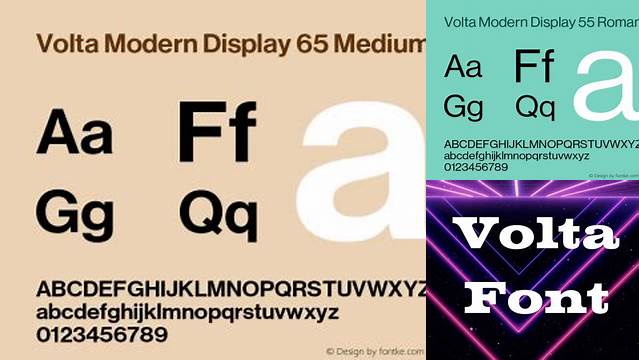
Volta Font: Free Download For Modern Display
Hey guys! Ever stumbled upon a font that just screams modern and chic? Well, let me introduce you to Volta, a display font that’s been making waves in the design world. And guess what? You can snag it for free! Let’s dive into why Volta is so awesome and how you can get your hands on it. Seriously, this font is a game-changer.
What Makes Volta Font So Special?
Volta isn't just another font; it’s a statement. Its clean lines and contemporary design make it perfect for a wide range of projects. Whether you're designing a sleek website, eye-catching posters, or a modern logo, Volta can elevate your work. The font's versatility stems from its carefully crafted letterforms that balance elegance with readability. It's the kind of font that makes people stop and take notice. When you're looking for a font that embodies modern display aesthetics, Volta should be at the top of your list. Its unique character sets it apart, making your designs stand out in a sea of generic typography. Trust me, using Volta is like giving your project a VIP pass to awesome-town.
Volta Font: A Detailed Overview
Before you rush off to download Volta, let's take a closer look at what makes it tick. This modern display font boasts a unique blend of geometric shapes and smooth curves, creating a visually appealing and highly legible typeface. It includes a full set of uppercase and lowercase letters, numerals, and a range of punctuation marks, making it suitable for various design applications. Volta's versatility extends to different weights and styles, allowing you to create a cohesive and dynamic typographic hierarchy in your projects. Its clean and contemporary design makes it ideal for headlines, logos, branding materials, and more. Designers love Volta for its ability to convey sophistication and modernity, adding a touch of elegance to any design. So, whether you're working on a website, poster, or branding project, Volta is a fantastic choice to elevate your designs.
Volta Font: Design Inspiration and Use Cases
Need some inspiration on how to use Volta? This modern display font shines in various design scenarios. For branding, Volta can create a sophisticated and memorable logo that reflects a modern and forward-thinking company. In web design, it’s perfect for headlines and navigation menus, adding a touch of elegance to the user experience. Print materials like posters and brochures benefit from Volta's bold and eye-catching letterforms, ensuring your message stands out. Consider using Volta for editorial design, such as magazine layouts, to create a visually appealing and contemporary look. Fashion brands, tech startups, and creative agencies often favor Volta for its sleek and stylish aesthetic. Experiment with different weights and styles to create a unique typographic hierarchy that enhances your design. Whether you're designing a website, a poster, or a logo, Volta is a versatile choice that can elevate your design and make a lasting impression.
Volta Font: Alternatives and Similar Fonts
If Volta isn’t quite hitting the mark, don’t worry! There are plenty of modern display font alternatives that offer similar aesthetics. Fonts like Montserrat, Raleway, and Bebas Neue share Volta's clean and geometric design principles, making them excellent substitutes. Montserrat is a versatile sans-serif font that works well in both headlines and body text, while Raleway offers a slightly more elegant and refined look. Bebas Neue is a tall and narrow sans-serif font that's perfect for creating a bold and impactful statement. Other alternatives include Futura, Avenir, and Proxima Nova, all of which are widely used in modern design. When choosing an alternative, consider the specific needs of your project and how well the font aligns with your brand's identity. Experiment with different fonts to find the perfect match that captures the essence of your design. Remember, the goal is to find a font that complements your overall design and enhances its visual appeal.
Pairing Volta Font with Other Fonts
Pairing fonts can be tricky, but when done right, it elevates your design. With Volta, a modern display font, consider pairing it with a simple sans-serif for body text, like Open Sans or Lato. These fonts are clean and easy to read, providing a nice contrast to Volta's bolder personality. Another option is to use a serif font like Merriweather or Roboto Slab for a more classic look. The key is to choose a font that complements Volta without competing with it. Experiment with different font combinations to see what works best for your project. A well-chosen font pairing can enhance readability and create a visually appealing design. Don't be afraid to try different combinations until you find the perfect match.
Designing a Logo with Volta Font
If you're looking to create a modern and eye-catching logo, Volta is an excellent choice. Its clean lines and contemporary design make it perfect for conveying a sense of sophistication and innovation. Start by experimenting with different letter combinations and arrangements to find a unique and memorable mark. Consider using different weights and styles of Volta to create visual interest. Pair it with a simple tagline in a complementary font to complete the logo. Remember to keep the design clean and minimal to ensure it's easily recognizable and scalable. Volta's versatility makes it suitable for a wide range of industries, from tech startups to fashion brands. With a little creativity, you can create a logo that truly stands out.
Volta Font: Testing Your Font Choices
Before finalizing your design, it's crucial to test your font choices to ensure they look good in different contexts. Test the font on different devices and screen sizes to ensure it's legible. Check the font in different browsers to ensure it renders correctly. Print out your design to see how the font looks in print. Ask for feedback from others to get a fresh perspective. Pay attention to the font's legibility, readability, and overall visual appeal. Testing your font choices can help you identify and fix any potential issues before they become a problem. A little testing can go a long way in ensuring your design is successful.